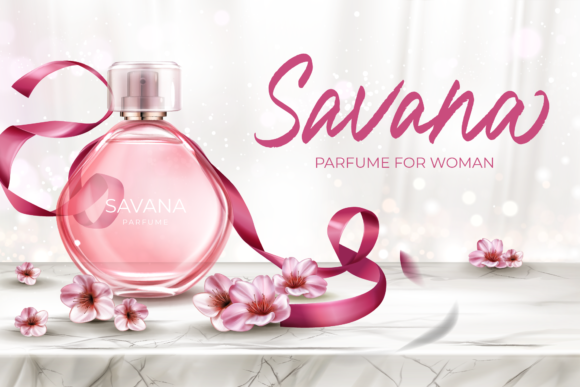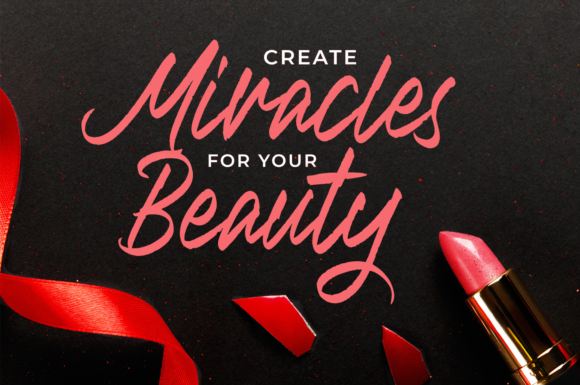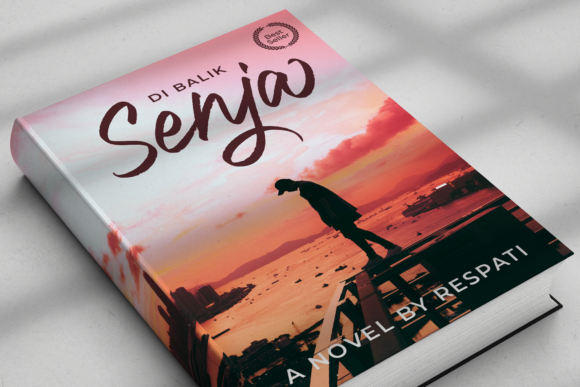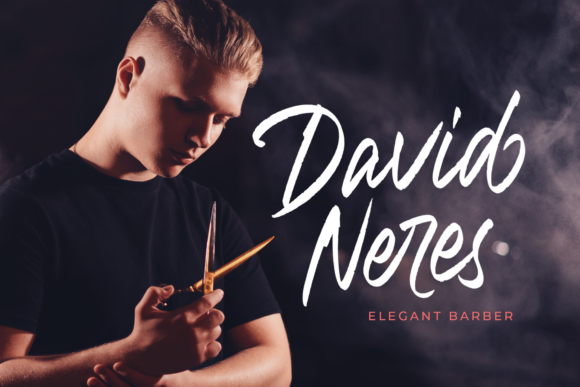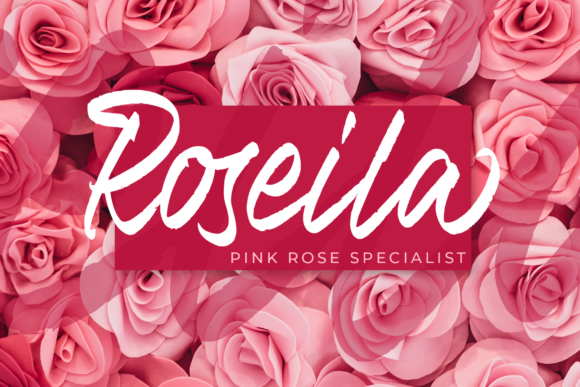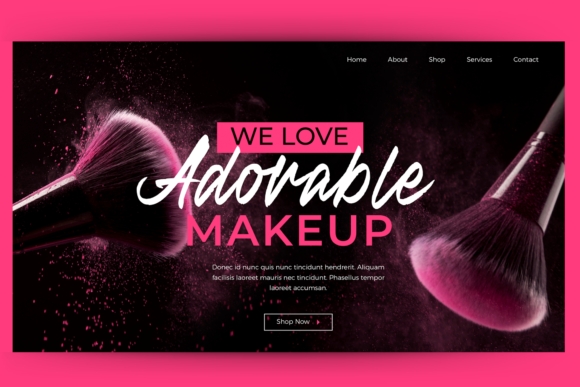
Introduction to Modjola Font
Modjola is an elegant brushed handwritten font.
It looks beautiful on a variety of designs requiring a personalized style, such as wedding invitations, thank you cards, weddings, greeting cards, logos and so on .